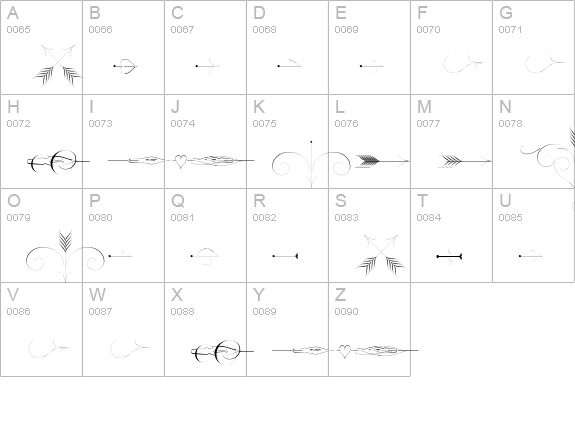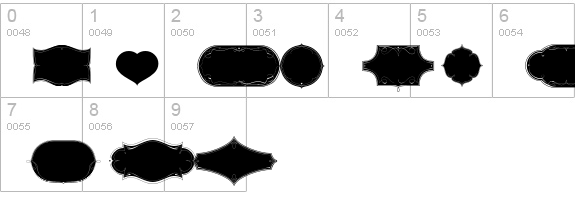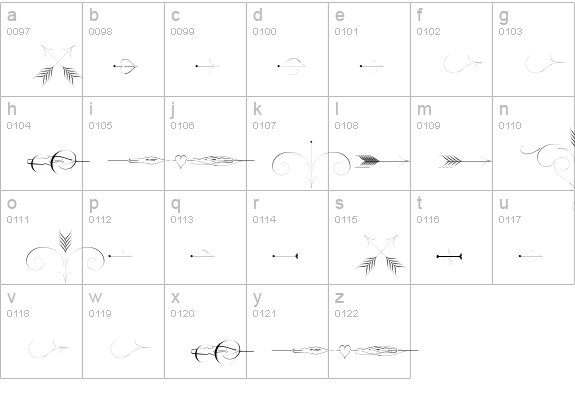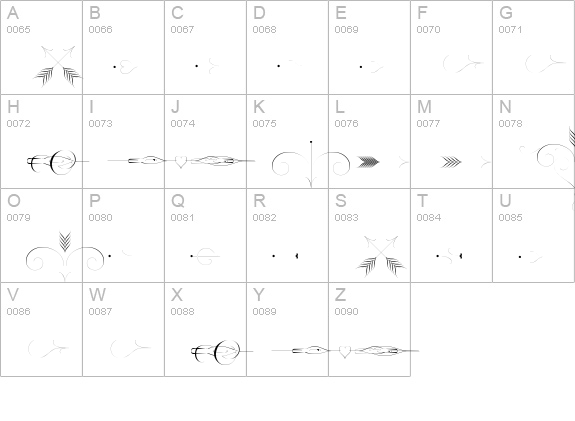
Erotica Fleurons Font Details
Erotica Fleurons font is a meticulously crafted typeface that exudes elegance and sensuality. With its intricate floral embellishments and graceful curves, this font is perfect for adding a touch of romance to your design projects. Each character is delicately designed to evoke a sense of passion and allure, making it ideal for creating captivating typography. What sets Erotica Fleurons font apart is not only its exquisite design, but also the fact that it is available for free. That's right, you can download this stunning font at FontsMarket.com without any cost. Whether you're working on a wedding invitation, a romantic book cover, or a sophisticated branding project, Erotica Fleurons font will bring a touch of sophistication and beauty to your work. Don't miss out on this opportunity to add a touch of romance to your designs with this gorgeous font, available for free at FontsMarket.com.